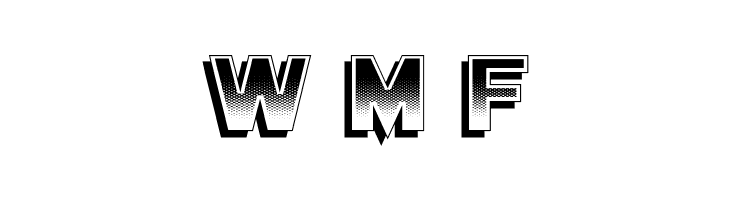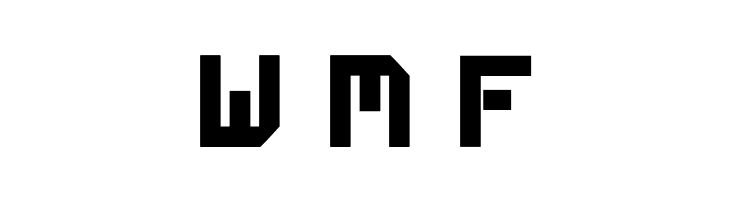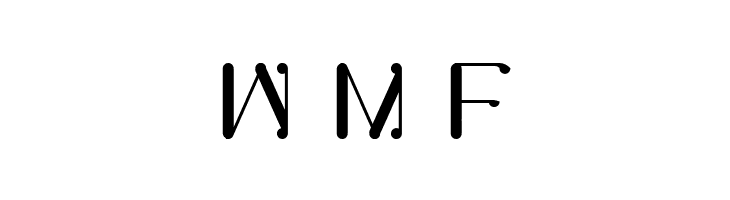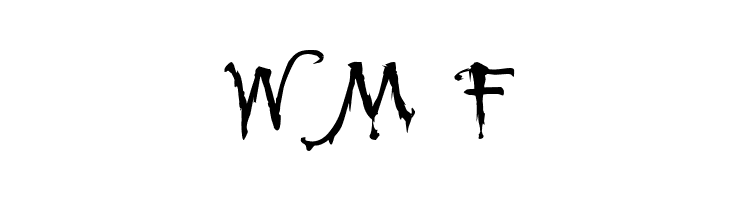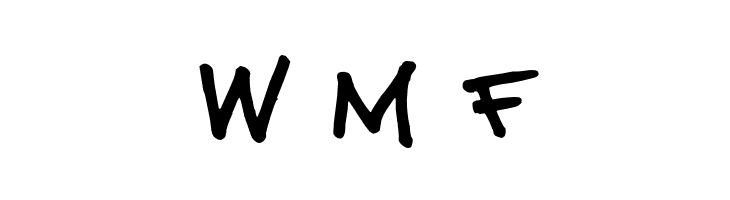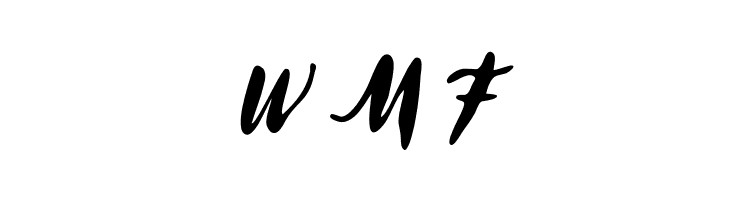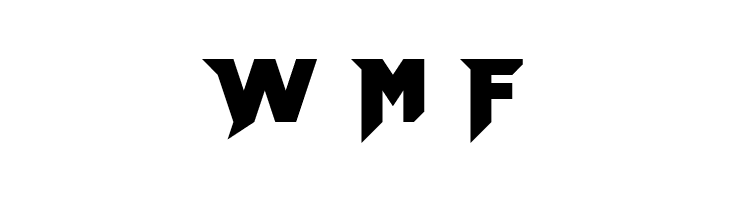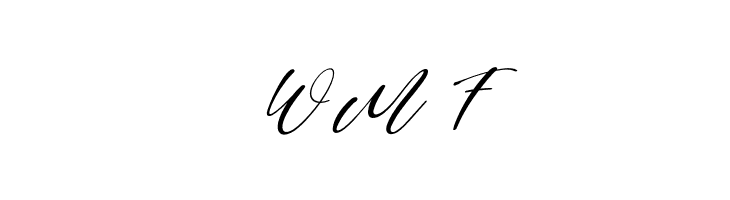
A bold, geometric font with sharp, angular edges and a modern, industrial feel.
A bold, geometric font with sharp, angular edges and a futuristic style.
A bold, angular font with a dynamic and energetic style.
A bold, angular, and italic font with a futuristic and energetic style.
A lively and elegant script font with flowing, cursive letterforms.
A dynamic, flowing script font with elegant cursive letterforms.
An elegant script font with high contrast and fluid curves.
An artistic script font with flowing, interconnected letters and decorative flourishes.
A dynamic, cursive script font with a natural, handwritten style.
A bold, distressed serif font with a grunge texture.
A dynamic and elegant script font with fluid, connected characters.
A bold, cursive font with sweeping curves and expressive flourishes.
A dynamic, expressive handwritten font with fluid, interconnected strokes.
A tall, narrow, and modern font with high contrast and minimalistic style.
A modern, elegant script font with a flowing, handwritten style.
A graceful, cursive script font with elegant loops and fluid connections.
A bold, modern font with geometric lines and elegant curves.
A modern, high-contrast font with geometric and decorative elements.
A modern, geometric font with bold, rounded uppercase letters and abstract special characters.
A modern, geometric font with thin lines and elegant curves.
A modern, geometric font with clean lines and a sleek design.
A dramatic, edgy font with sharp serifs and a distressed, dripping appearance.
A dramatic, edgy font with sharp, dripping strokes for a haunting effect.
A bold, expressive script font with fluid, interconnected strokes.
A bold, geometric font with sharp angles and a modern Art Deco influence.
A bold, expressive handwritten font with thick, uneven strokes and a playful style.
A bold, decorative font with a 3D effect and dotted texture.
A bold, distressed font with insect silhouettes and a grunge aesthetic.